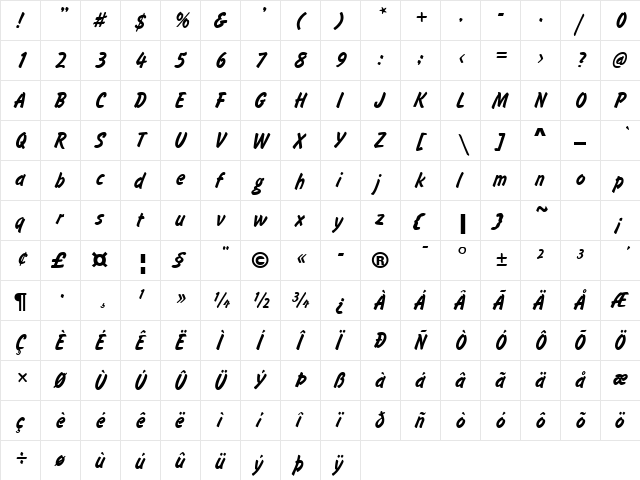
Flash Regular Font Preview
Flash Regular
Flash Regular Font Details
Design Context for Flash Typeface
Flash takes a measured approach to typography — its balanced proportions and neutral character make it a reliable workhorse for both digital and print work.